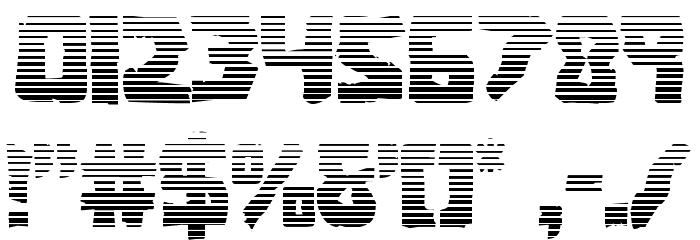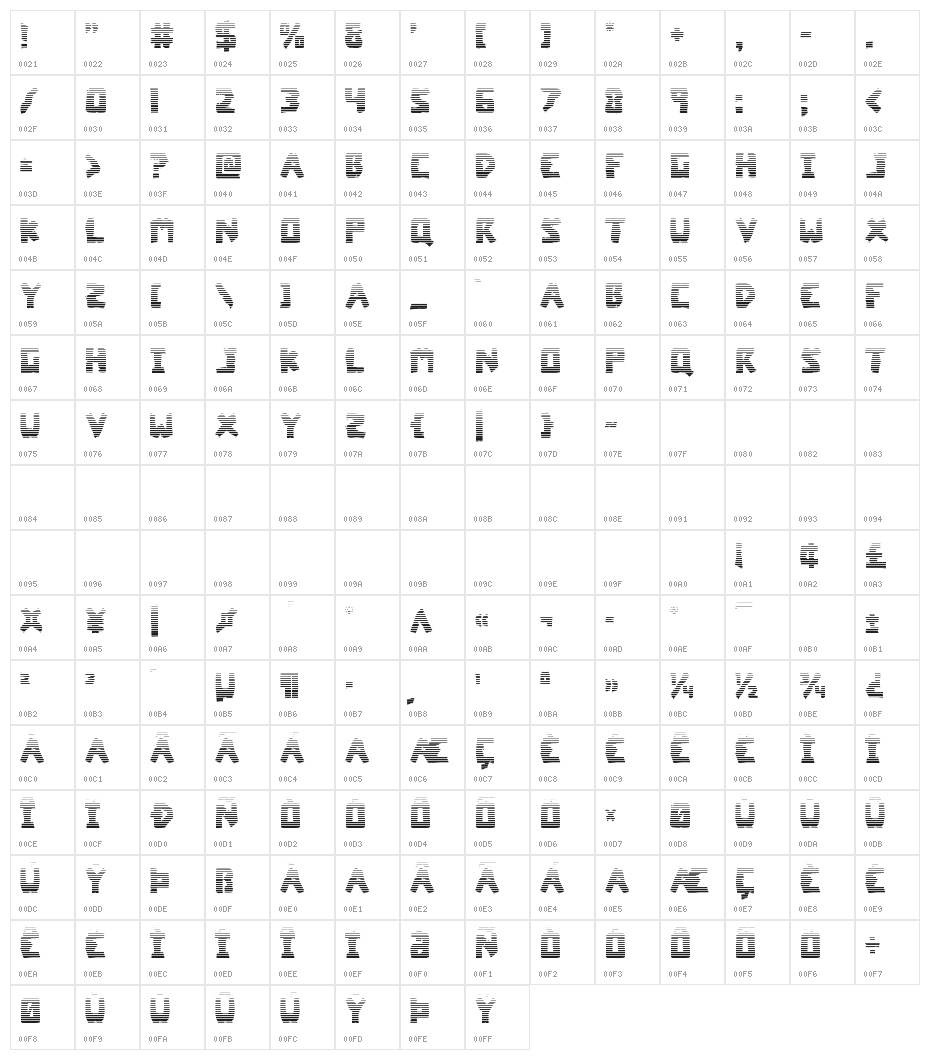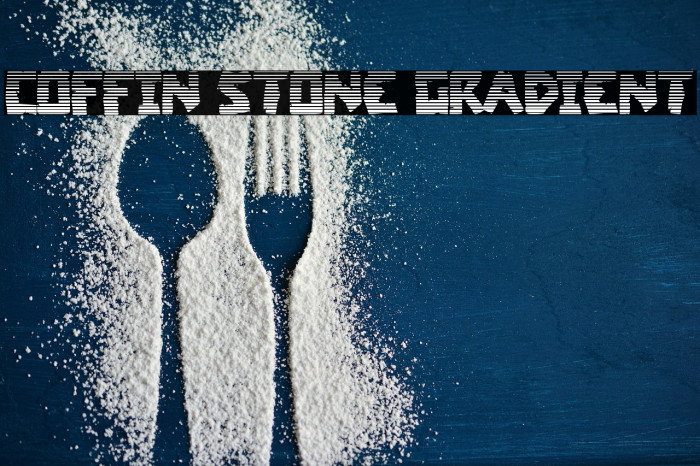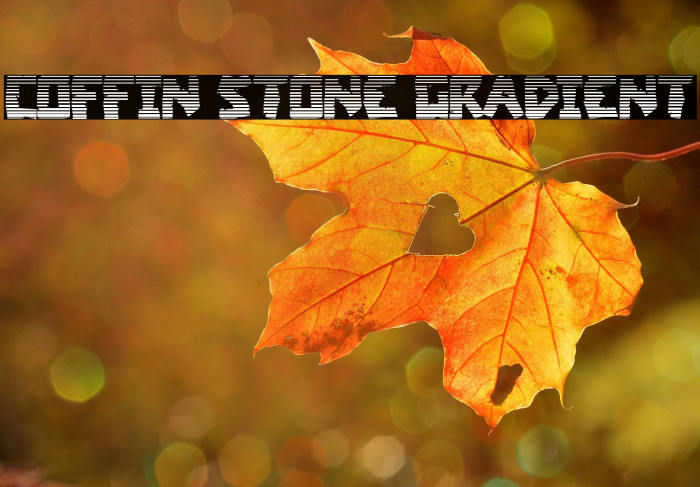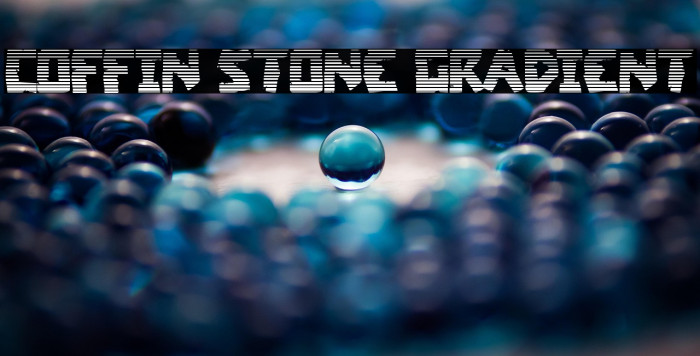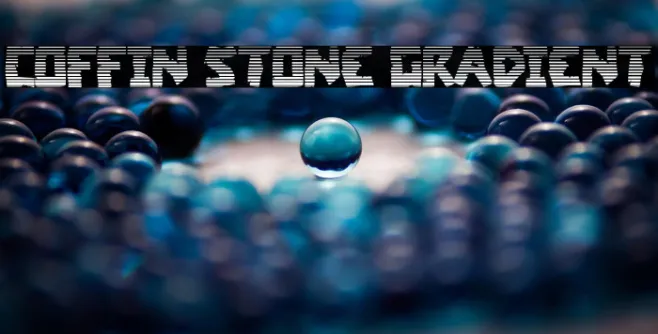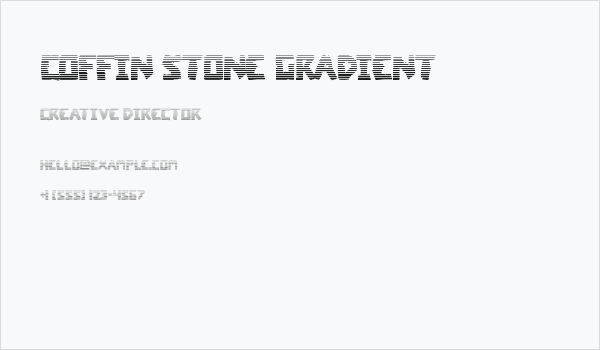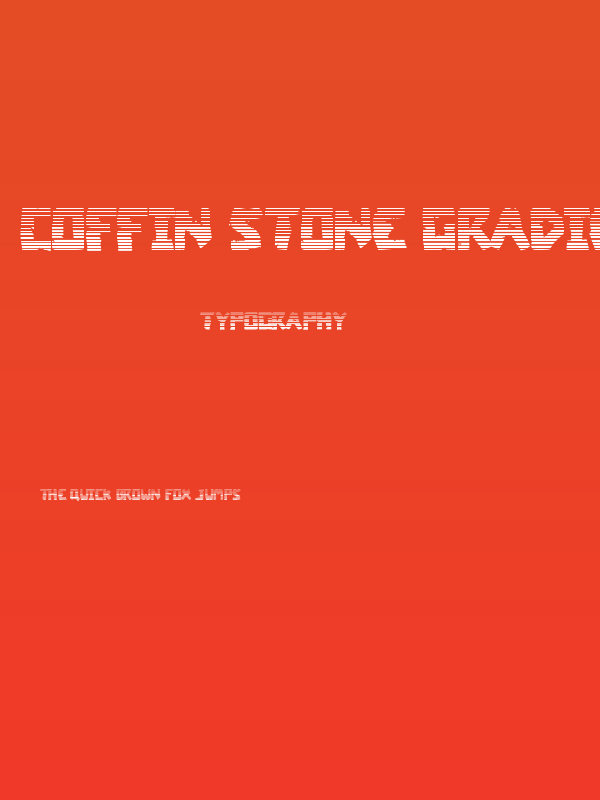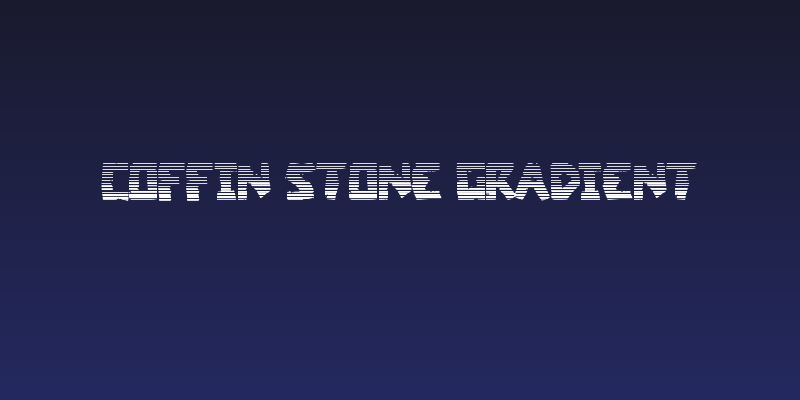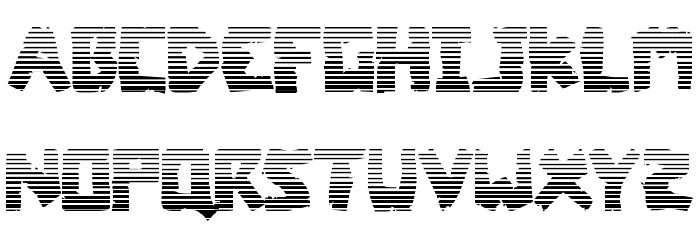
Coffin Stone Gradient Font
Coffin Stone Gradient Description
This font features a unique, modern design with a gradient effect created by horizontal lines that form each character. The letters are bold and angular, giving a futuristic and edgy appearance. The use of parallel lines creates a sense of movement and depth, making it visually striking. The uppercase and lowercase letters maintain a consistent style, with the numbers and special characters following the same design principles. This font is ideal for projects that require a bold statement and a modern aesthetic.
| Proposed Projects | Ideal for futuristic designs, tech-related branding, posters, and digital art projects. |